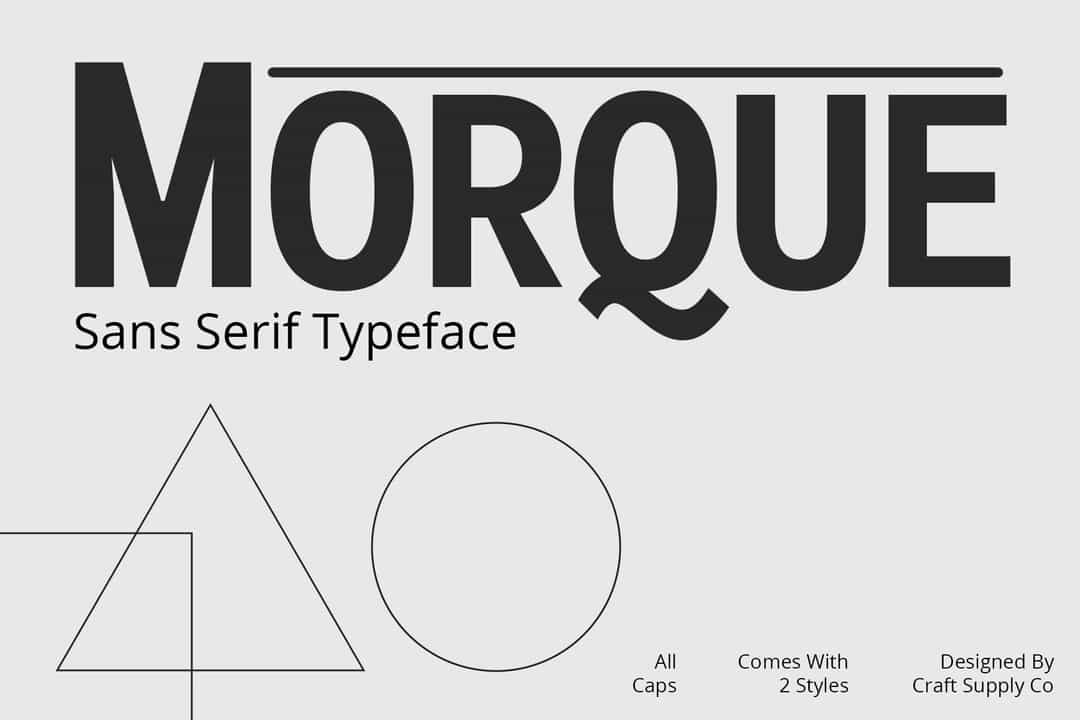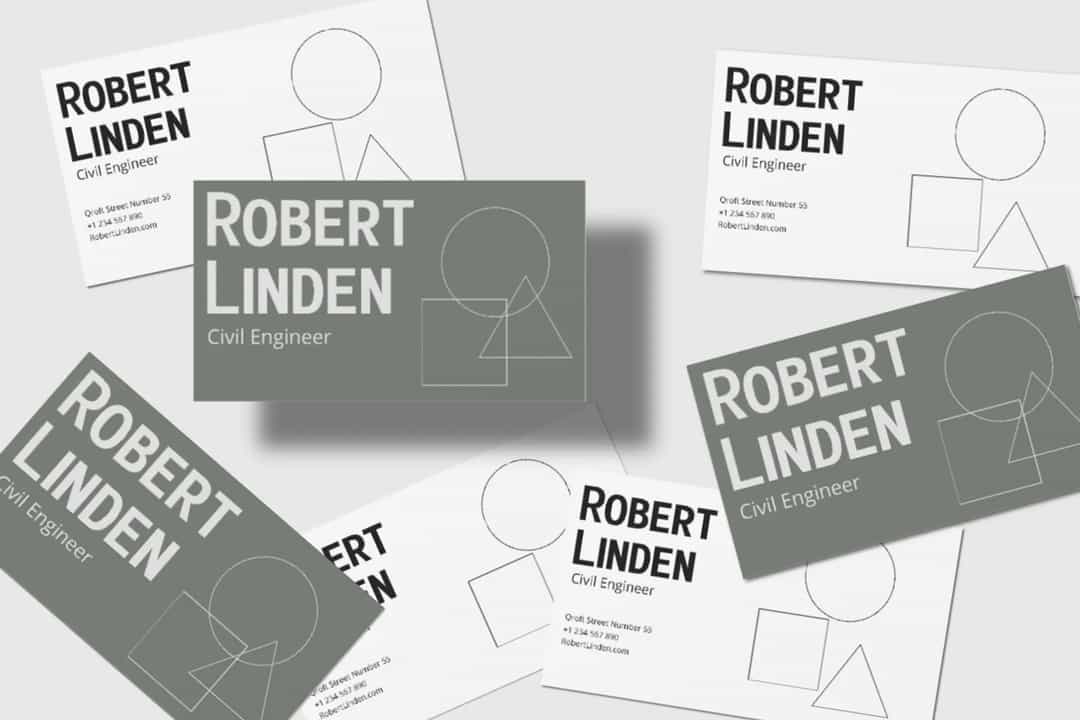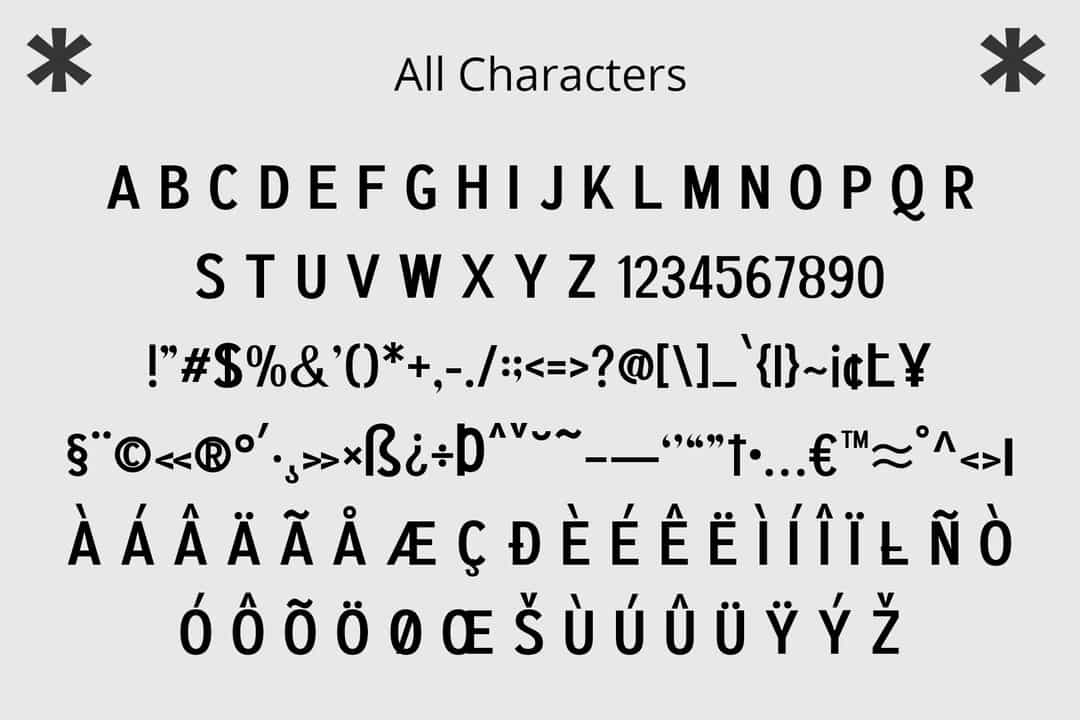
Morque Sans Serif stands out with its all caps style, perfect for striking display and title titles. Morque captivates any space it inhabits; its bold style attracts attention in any environment and increases accessibility of headlines.